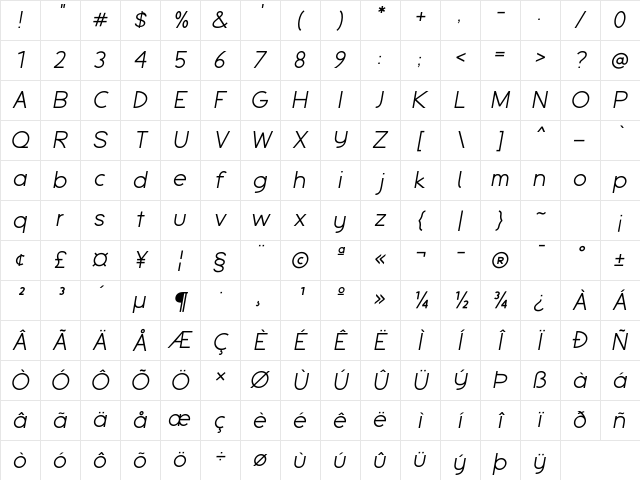
Espera Italic Free Font
Espera Italic
Designer: Barbara Trein
Design Context for Espera
Espera is a composed and adaptable typeface that performs quietly and consistently across a wide range of design contexts. The slanted form adds forward momentum and visual energy.
Pro Tip: Use Espera for emphasis, pull quotes, and subheadings where its slanted energy can add rhythm to the layout.